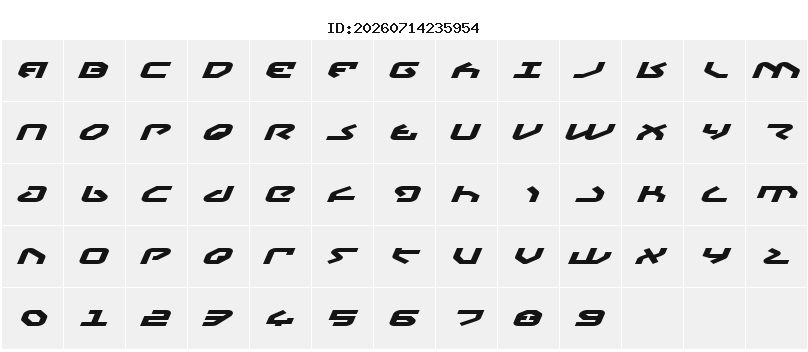
• Font Name: Yahren Expanded Italic
• Font Style: Expanded Italic
• Designer: Dan Zadorozny
About Yahren Expanded Italic.ttf
Yahren Expanded Italic.ttf is a modern, elegant sans-serif font designed for ultimate readability and visual harmony. Perfect for branding, headlines, web design, and print materials.